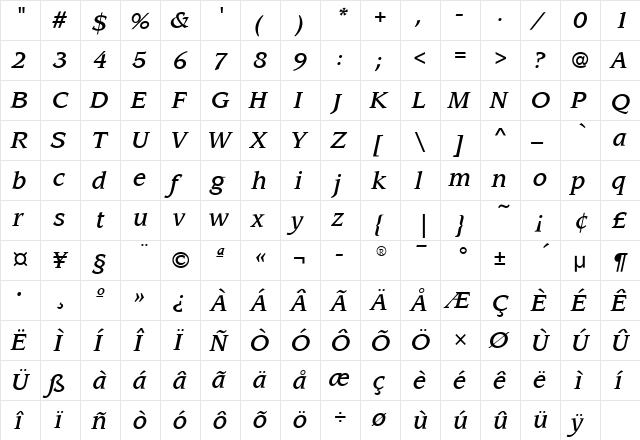
LeawoodMdITC Italic
Design Context for LeawoodMdITC Typeface
LeawoodMdITC echoes the hand-painted signage and woodblock typography of the American frontier, with a warm, rugged personality. Its italic angle brings a sense of urgency and motion to the letterforms.
A natural fit for craft spirits, ranch branding, rodeo events, and Americana-inspired design work.
Font Pairing: Combine LeawoodMdITC with a simple slab or neutral sans — period-accurate companions reinforce the vintage feel without competing for attention.
Pro Tip: Use LeawoodMdITC for short, impactful bursts of text — it shines in poster headlines and product names rather than extended copy.